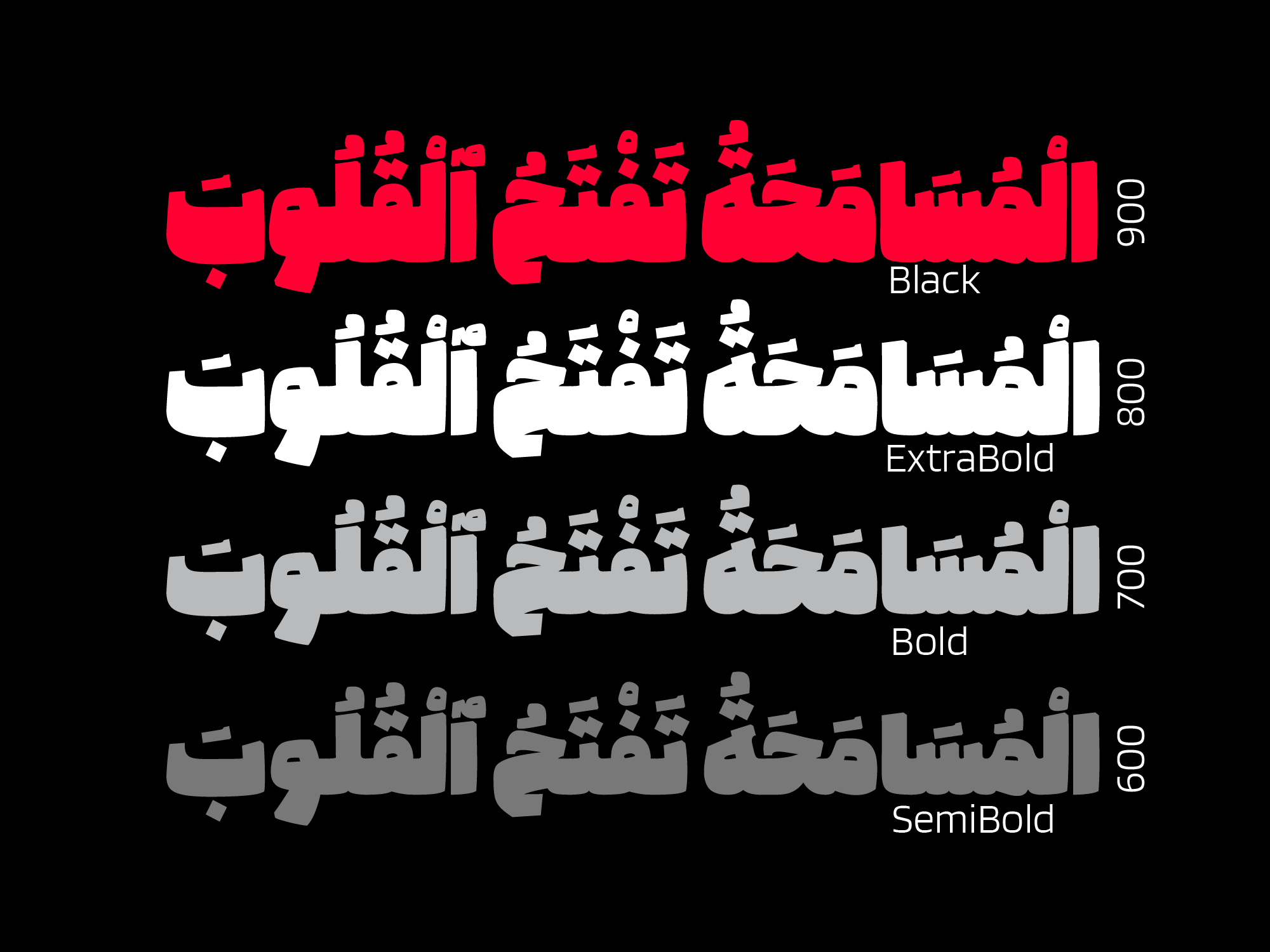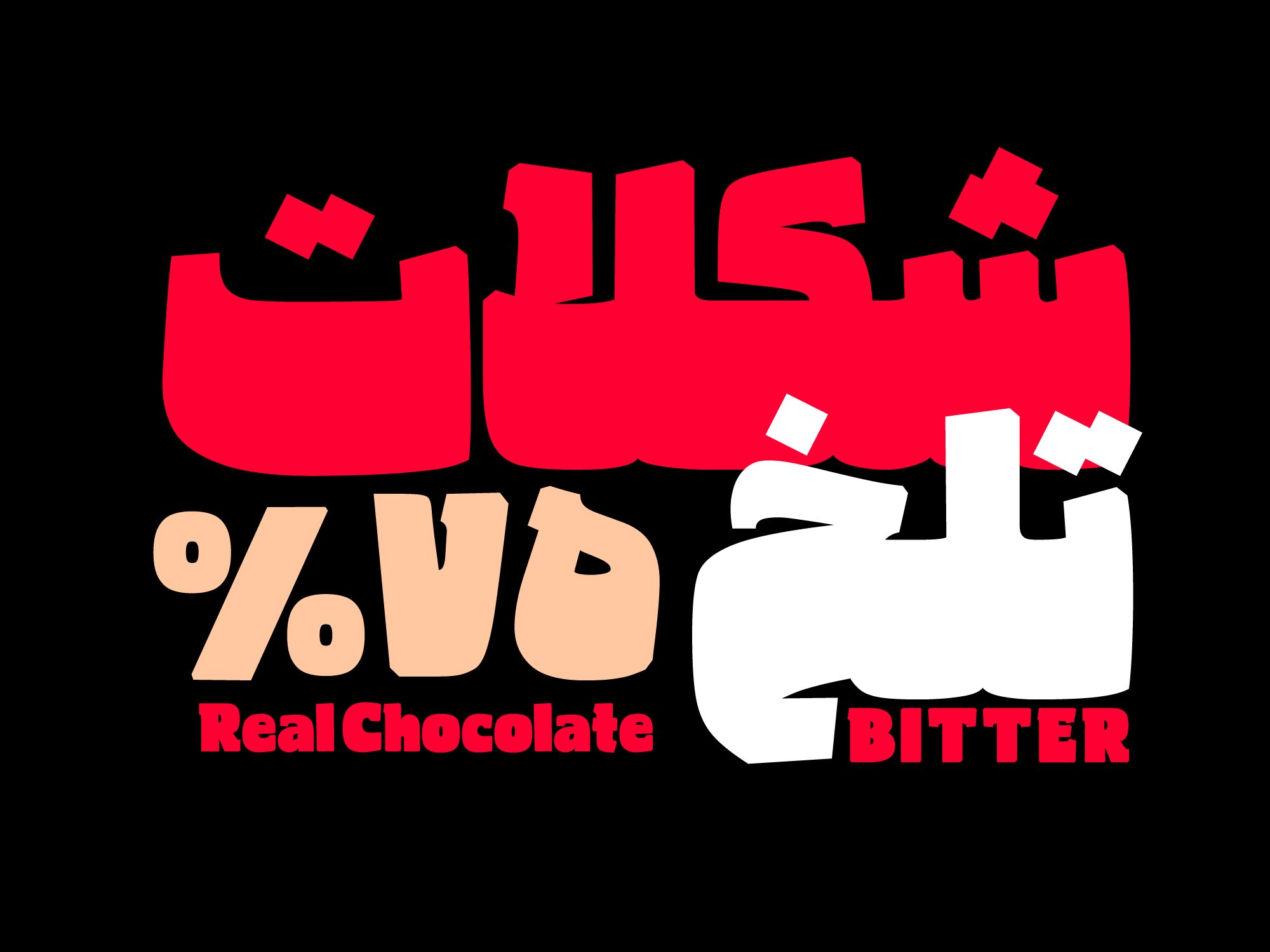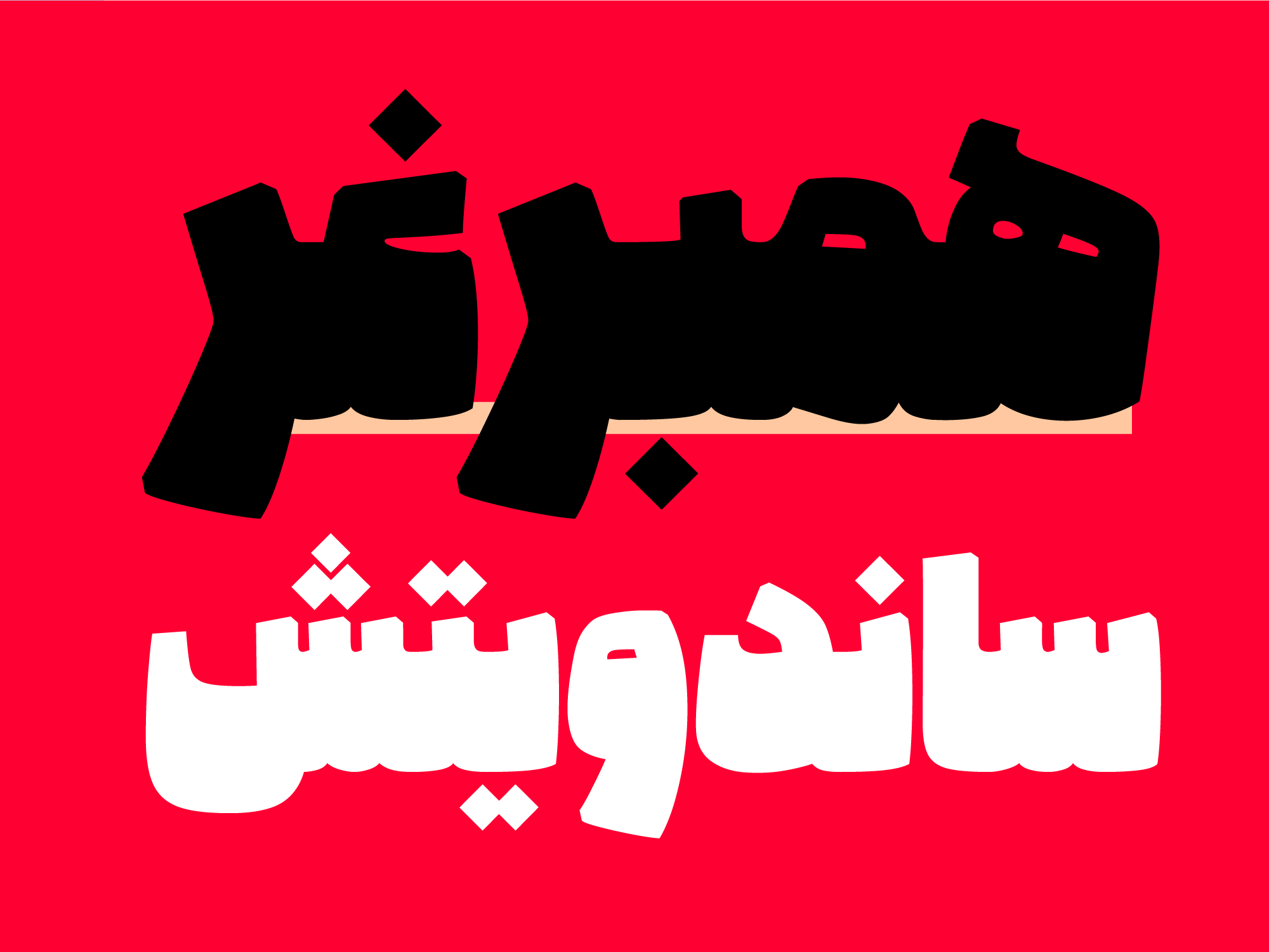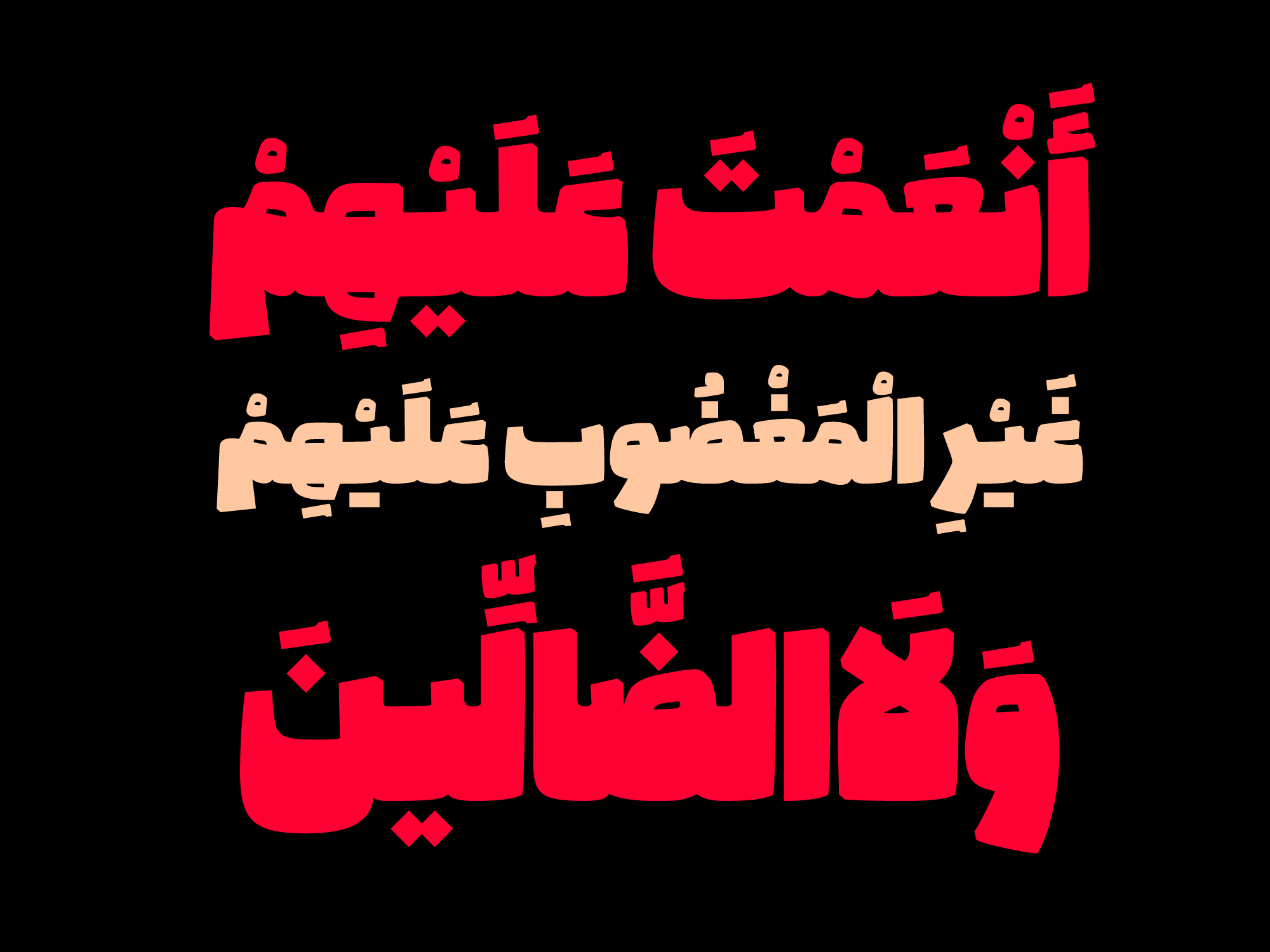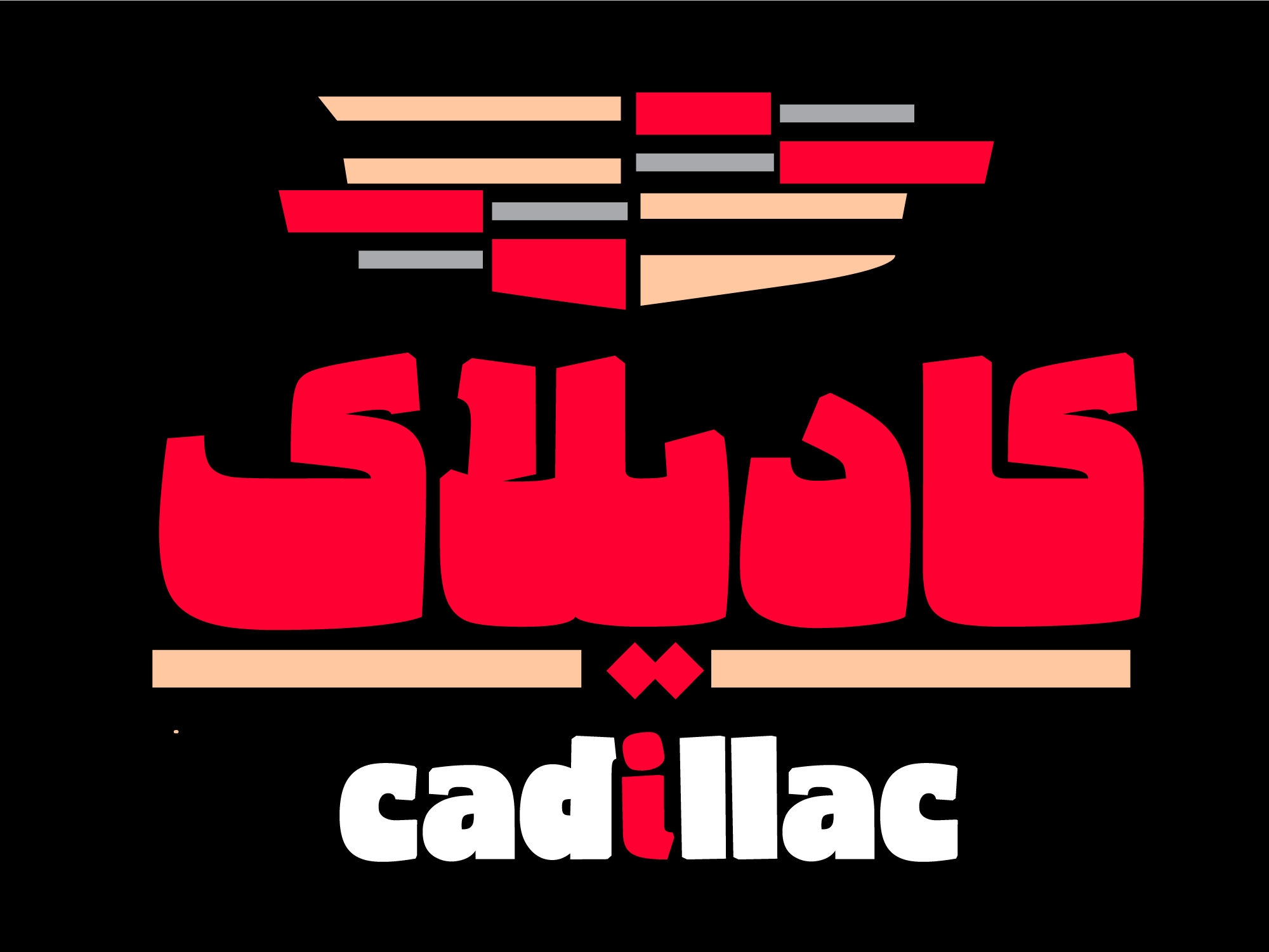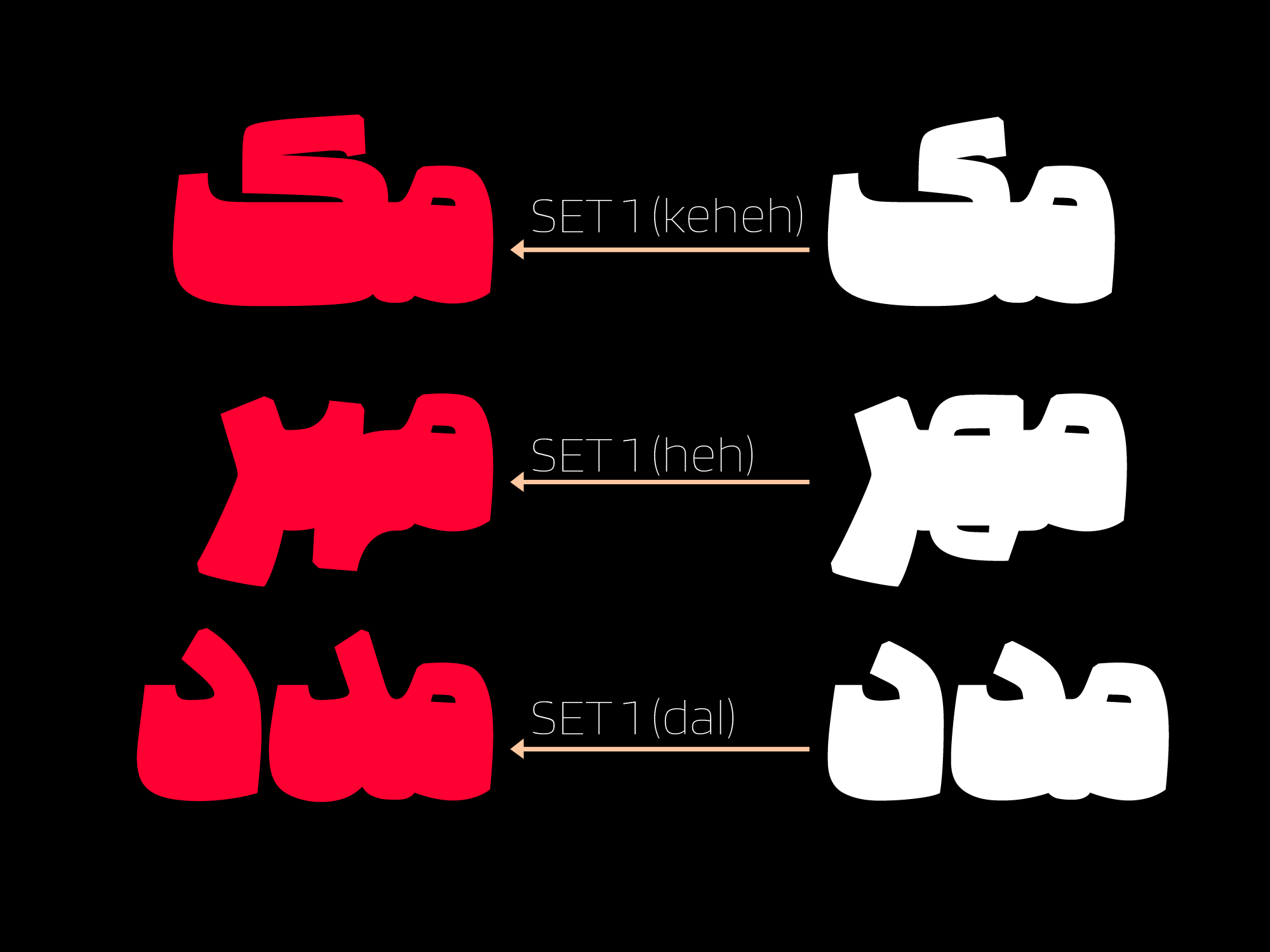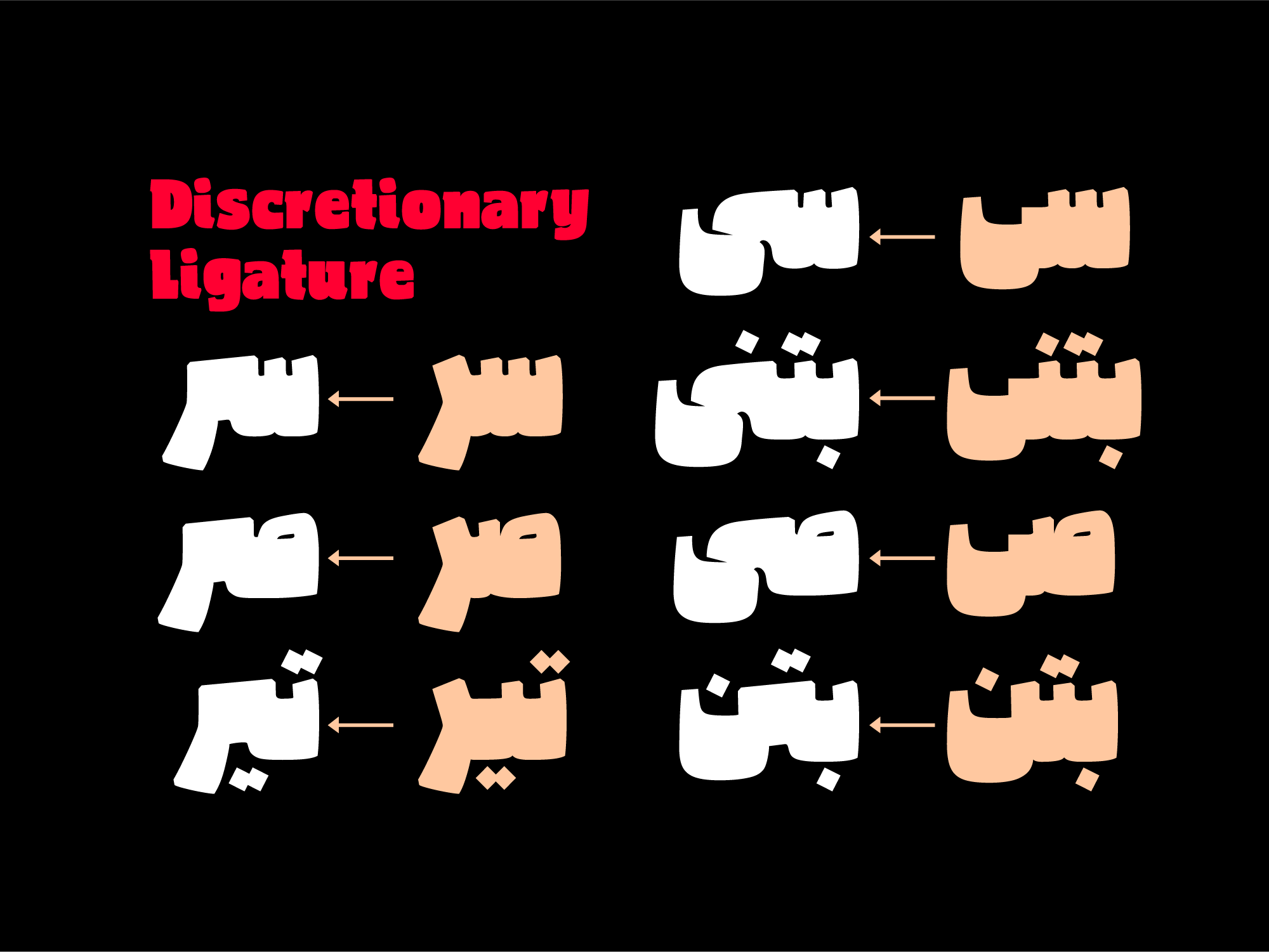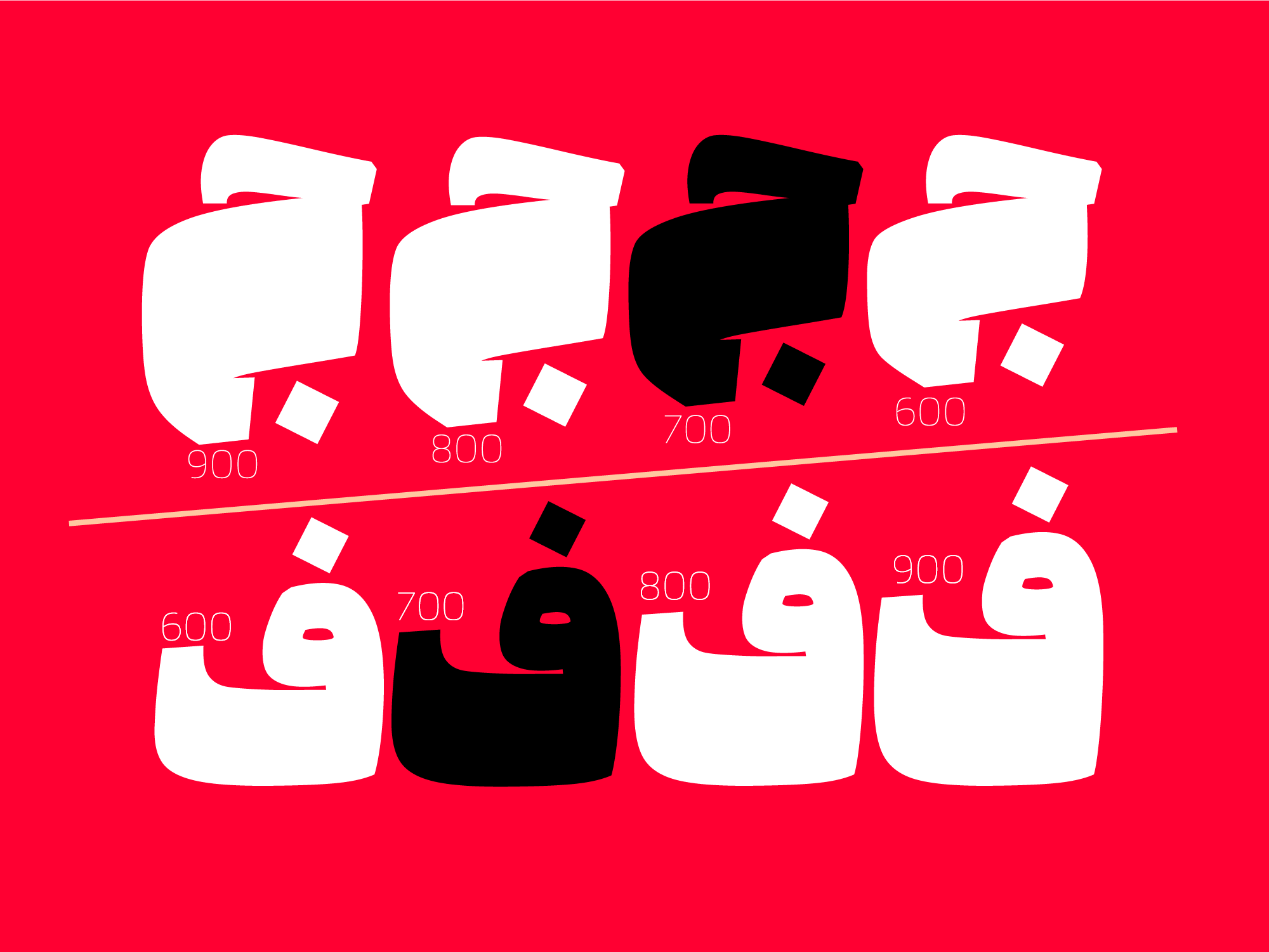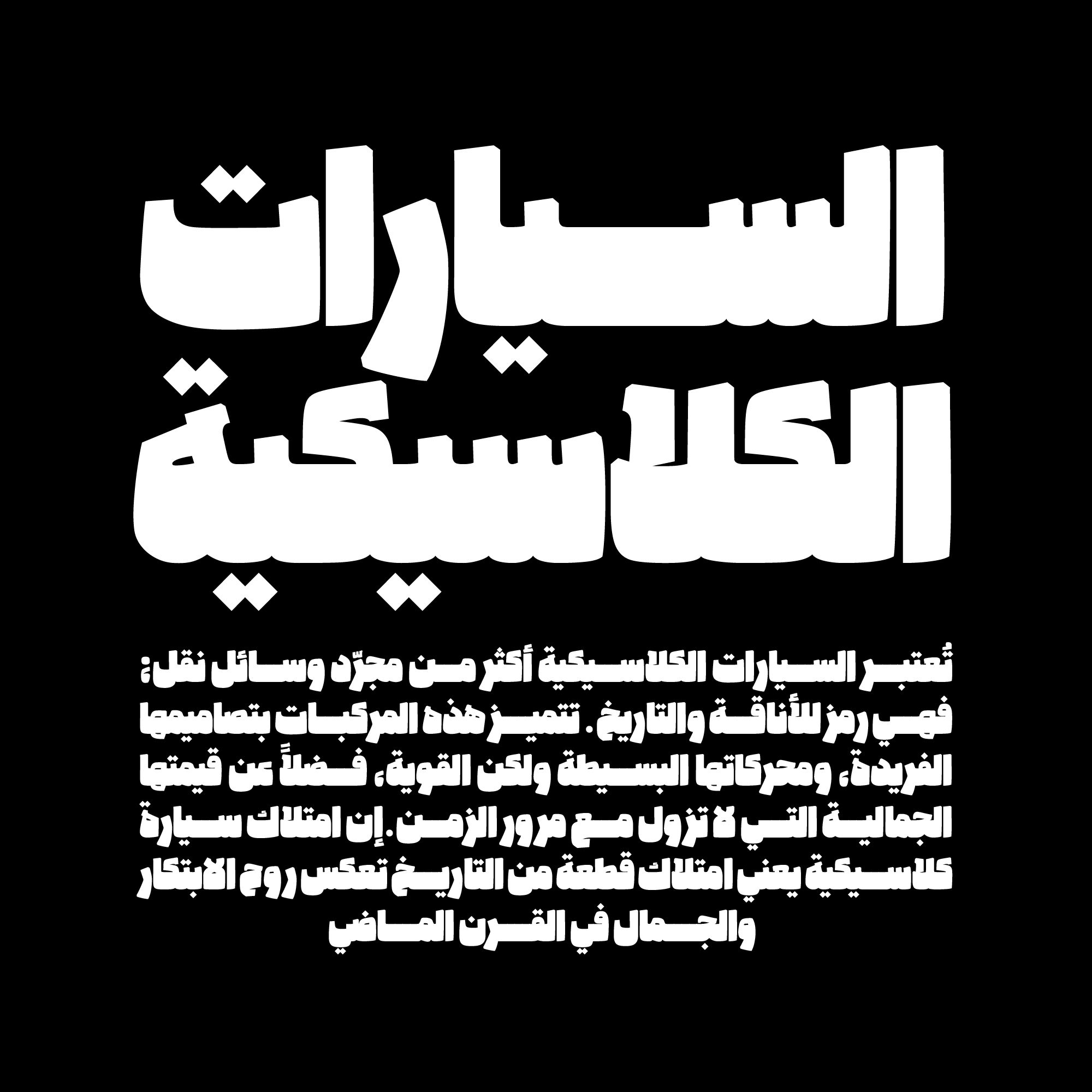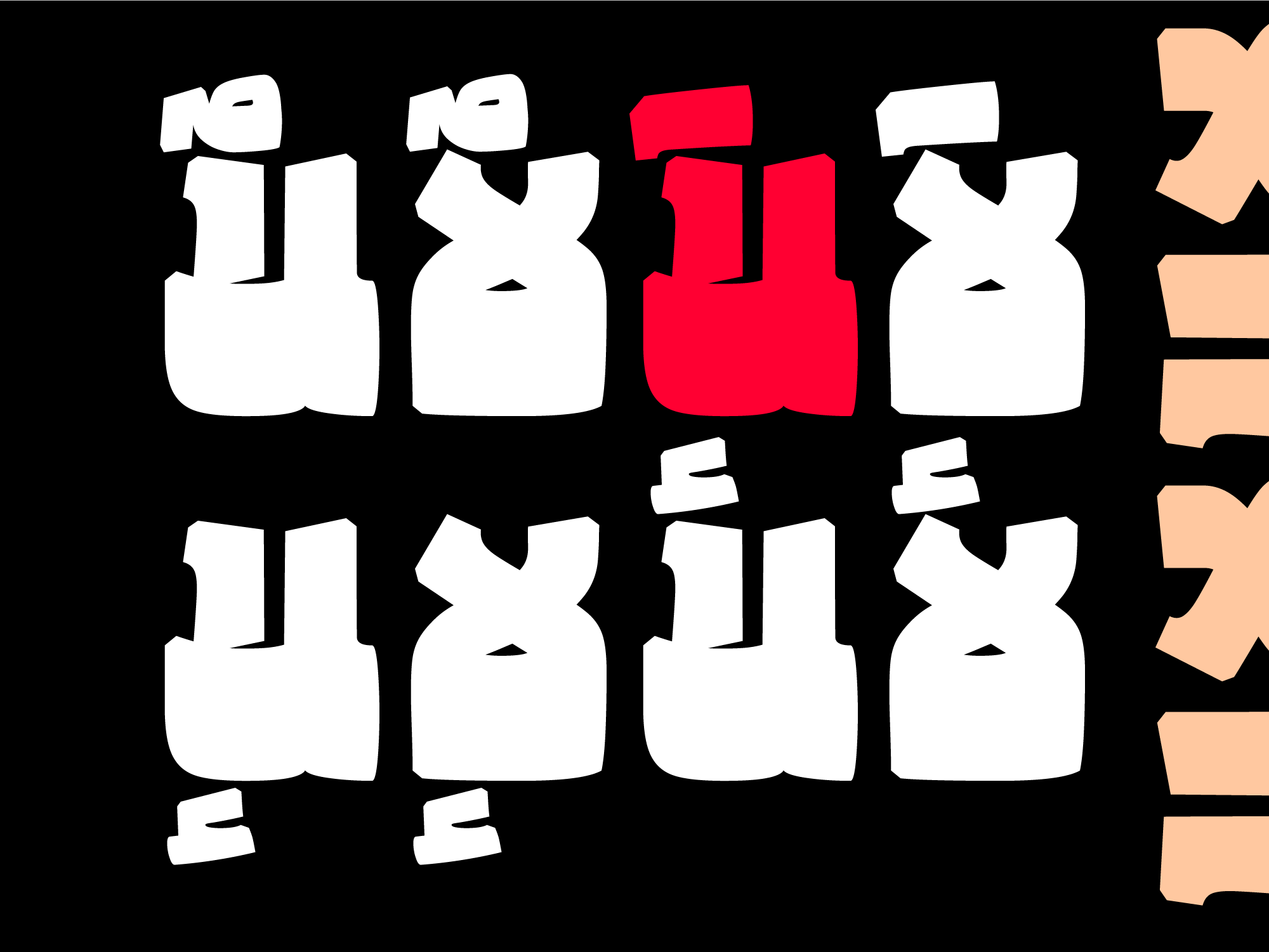
Sangin
4 weights, 5 dot styles
In addition to its strong appearance, Sangin has been designed with attention to clarity and readability, so it remains effective without losing balance. Its proportions and spacing make it reliable not only for headlines but also for use in logos and other display purposes.
Unlike many display typefaces that are limited to a single weight, Sangin is available in four. This variety allows for a consistent typographic voice while giving designers flexibility in emphasizing different levels of content.
From titles and posters to branding and digital use, Sangin offers a straightforward solution whenever a bold and stable presence is needed.
Sangin supports five languages: Arabic, Persian, Kurdish, and Urdu, and has its own English letters.
Weight Variety in Sangin Font
The Sangin typeface offers a small four-weight family, each featuring five dot variations — providing a total of twenty distinct styles.
Ligatures and Alternates
Sangin includes ligatures and alternative letterforms.
Alternate Dot Styles
The typeface includes 5 dot styles.